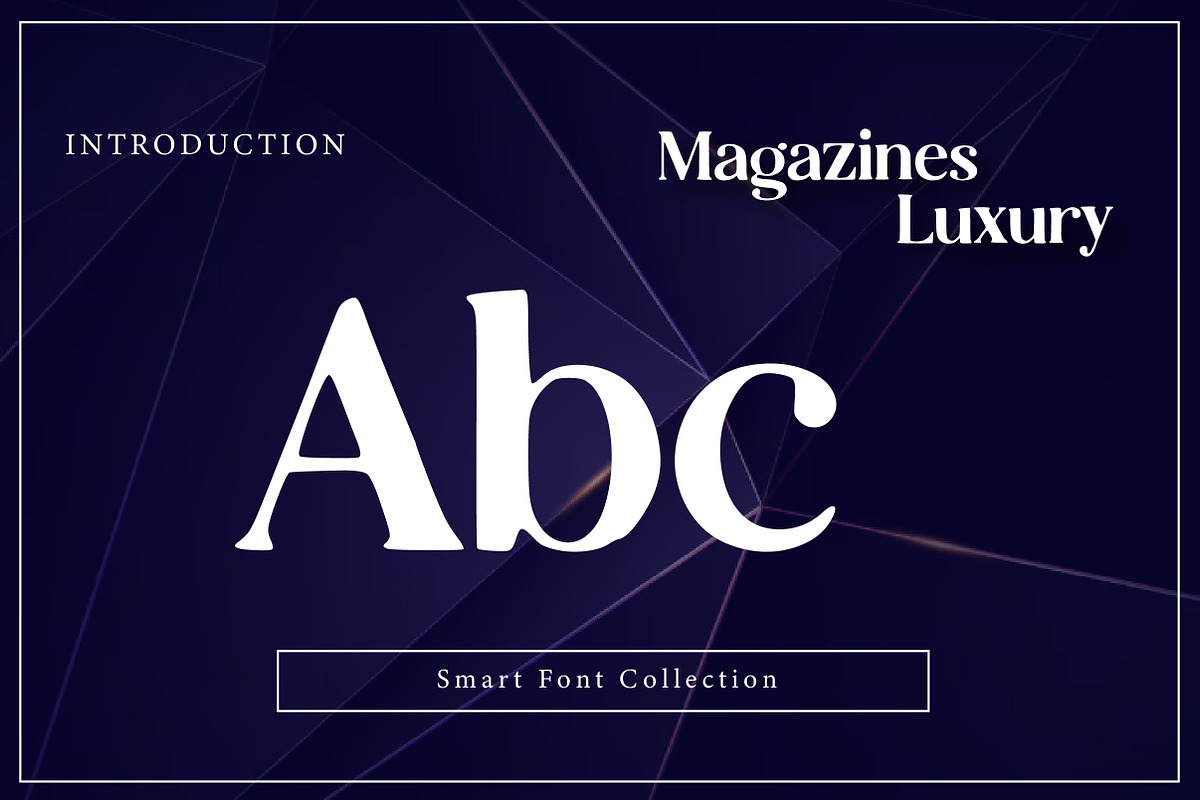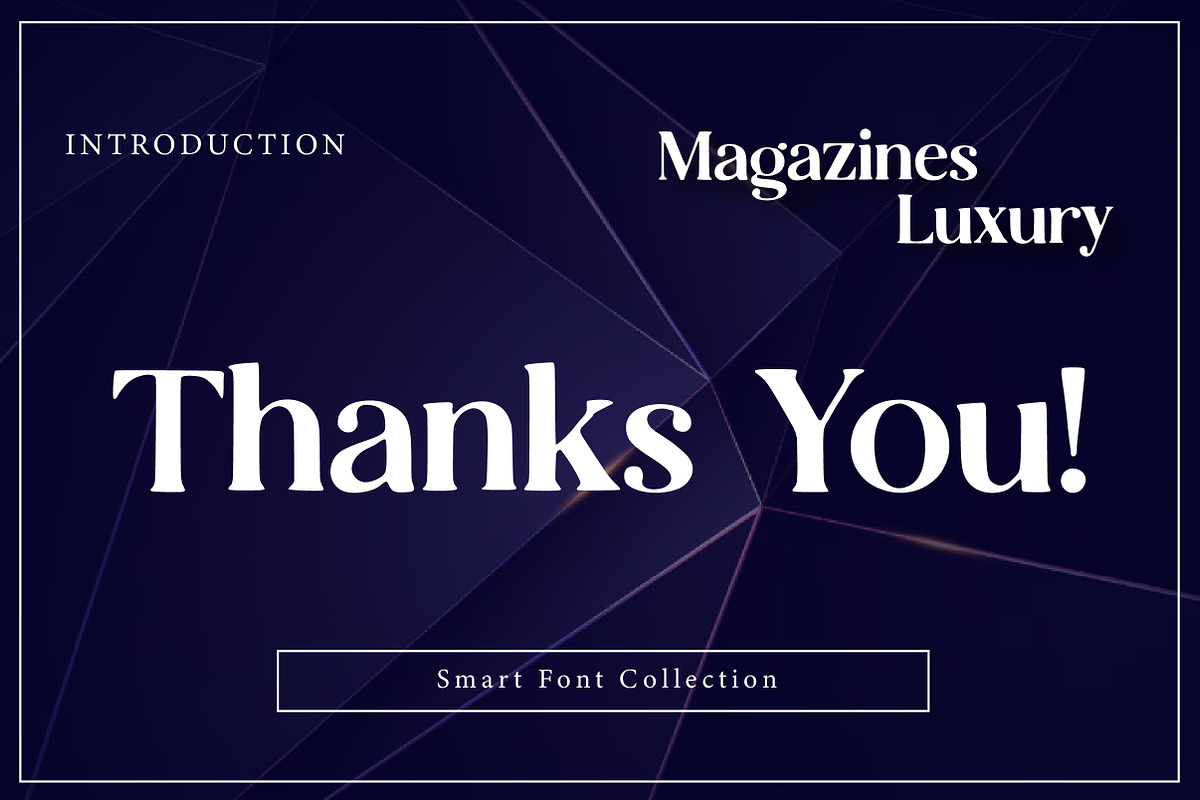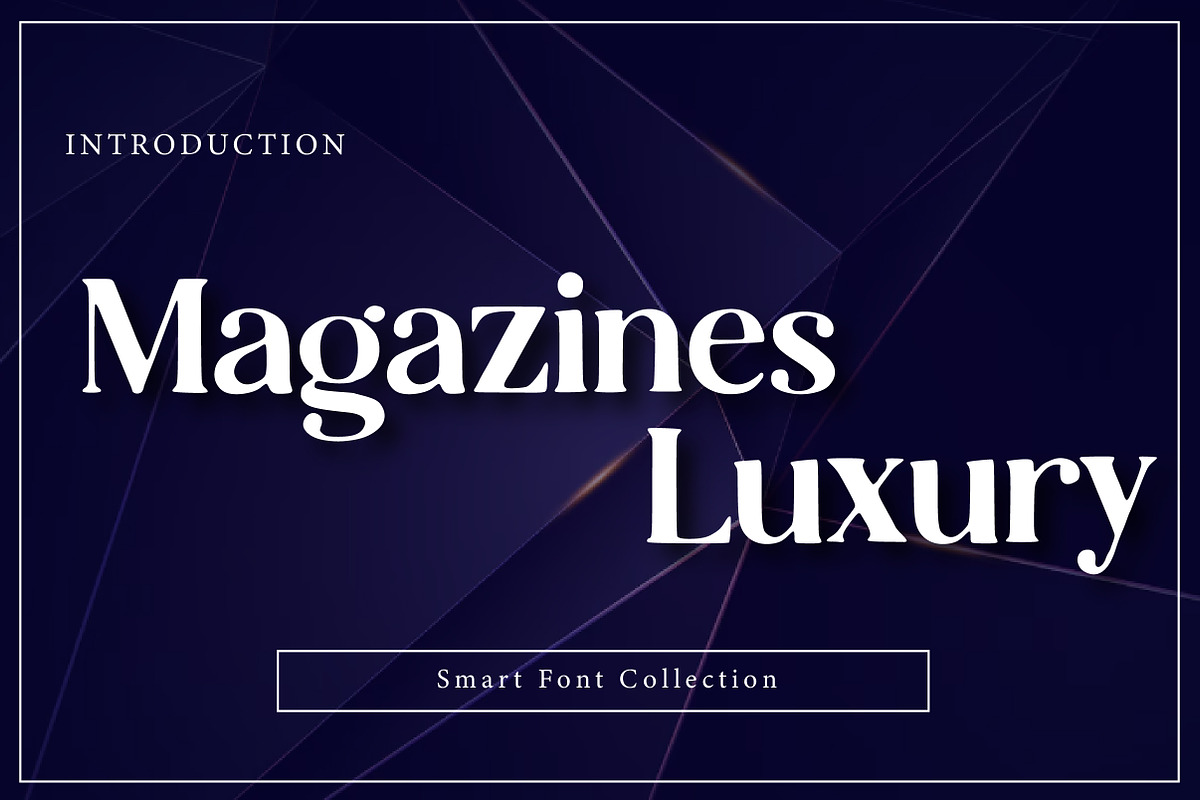
Magazines Luxury
Luxury Magazine Serif is an elegant and high-end serif typeface inspired by premium fashion magazines and editorial design. With its refined curves, balanced contrast, and sophisticated ball terminals, this font delivers a timeless luxury feel.
Designed for headlines and display use, Luxury Magazine Serif works perfectly for fashion magazines, luxury branding, logos, editorials, packaging, invitations, and upscale marketing materials. Its classic yet modern character makes it suitable for both print and digital projects where elegance and professionalism matter most.
Whether you’re creating a magazine cover, a luxury brand identity, or a stylish logo, this typeface adds a premium and editorial touch to your design.